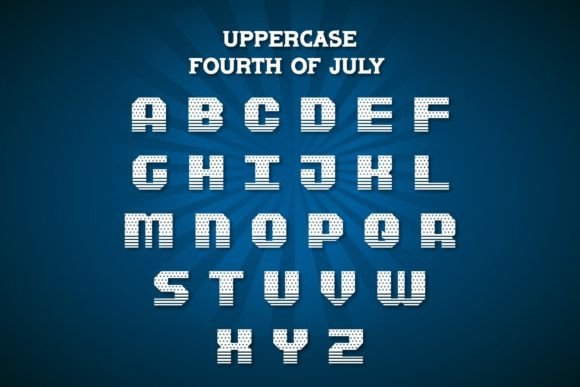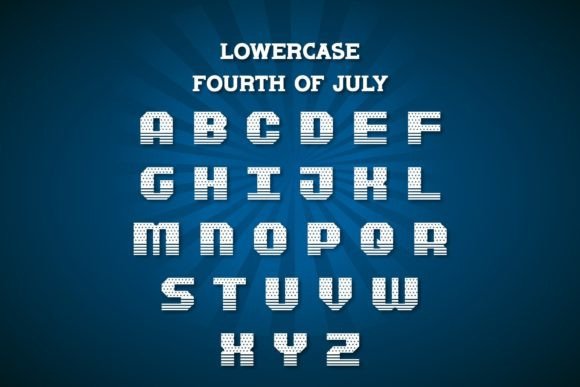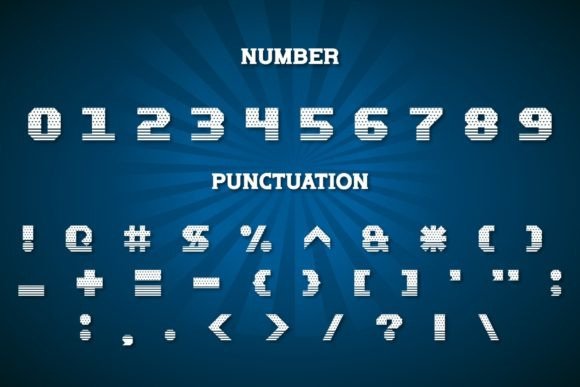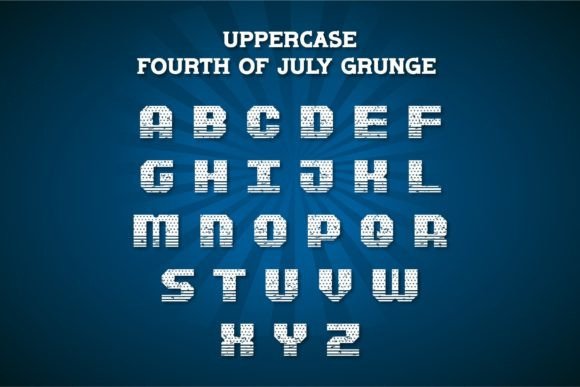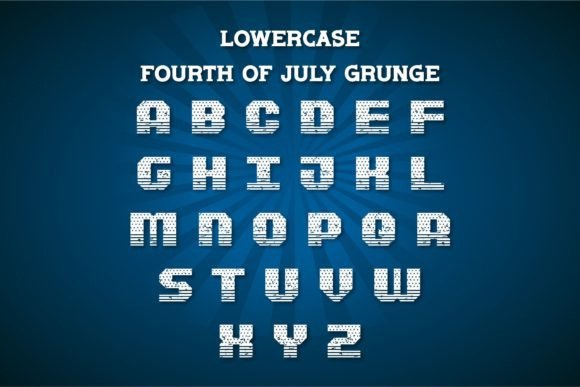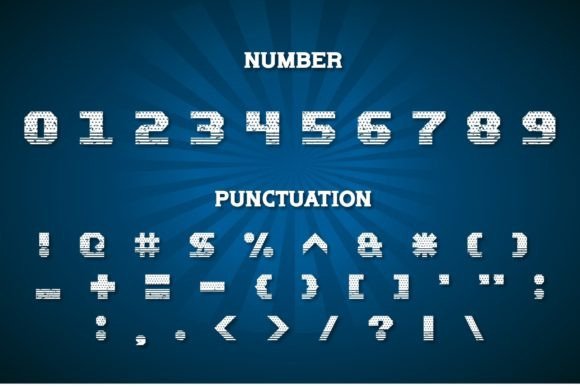
Introducing the Fourth of July Font: A Bold and Festive Addition to Your Designs
The Fourth of July Font is a bold, incredibly cool, and assertive decorative font that’s perfect for adding a touch of patriotism and celebration to your designs. Whether you’re working on a blog post, logo, branding project, ad, invitation, greeting card, planner, photo album, or decoration, this font is sure to make a statement.
What Makes the Fourth of July Font So Special?
The Fourth of July Font is a unique and eye-catching font that’s specifically designed to capture the spirit of Independence Day and other summer celebrations. Its bold and assertive style makes it perfect for headlines, titles, and other design elements that need to stand out. At the same time, its decorative and festive feel makes it ideal for creating a fun and playful atmosphere in your designs.
One of the best things about the Fourth of July Font is its versatility. You can use it for a wide range of projects, from digital designs to print materials. Here are some ideas to get you started:
- Blog posts: Add a patriotic touch to your blog posts and articles with the Fourth of July Font. Use it for headings, subheadings, and other design elements to create a festive atmosphere.
- Logos and branding: Create a bold and memorable logo for your business or brand with the Fourth of July Font. Its assertive style makes it perfect for creating a strong and confident brand identity.
- Ads and marketing materials: Use the Fourth of July Font to create eye-catching ads and marketing materials that grab attention and make a statement.
- Invitations and greeting cards: Create patriotic invitations and greeting cards for special occasions like Independence Day, birthdays, and holidays.
- Planners and organizers: Add a touch of fun and personality to your planners and organizers with the Fourth of July Font. Use it for headings, titles, and other design elements to create a playful and festive atmosphere.
- Photo albums and scrapbooking: Use the Fourth of July Font to create beautiful and memorable photo albums and scrapbooking pages. Its decorative style makes it perfect for adding a personal touch to your designs.
- Decorations and DIY projects: Add a patriotic touch to your decorations and DIY projects with the Fourth of July Font. Use it for signs, banners, and other decorative elements to create a festive atmosphere.
Why Choose the Fourth of July Font?
There are many reasons why you should choose the Fourth of July Font for your designs. Here are a few:
- Unique and eye-catching: The Fourth of July Font is a unique and eye-catching font that’s sure to make your designs stand out.
- Versatile: You can use the Fourth of July Font for a wide range of projects, from digital designs to print materials.
- High-quality: The Fourth of July Font is a high-quality font that’s designed to produce crisp and clear results, even at large sizes.
The Fourth of July Font is a bold, incredibly cool, and assertive decorative font that’s perfect for adding a touch of patriotism and celebration to your designs. Its versatility, ease of use, and high-quality make it an excellent choice for designers and crafters. Whether you’re working on a blog post, logo, branding project, ad, invitation, greeting card, planner, photo album, or decoration, this font is sure to make a statement. So why wait? Download the Fourth of July Font today and add a festive touch to your designs!